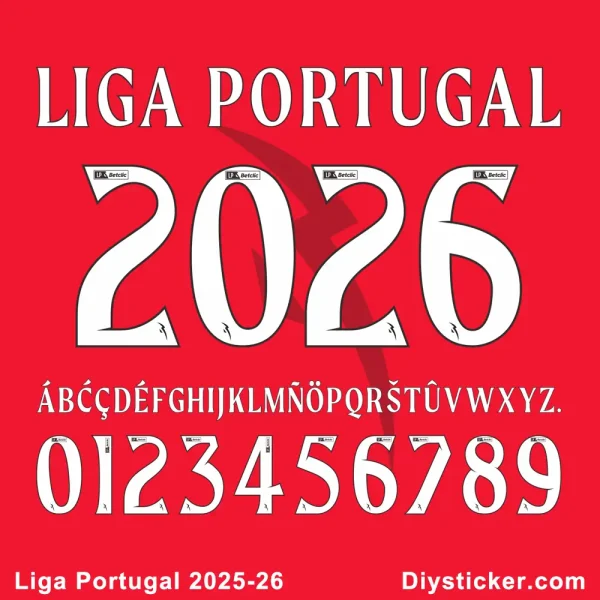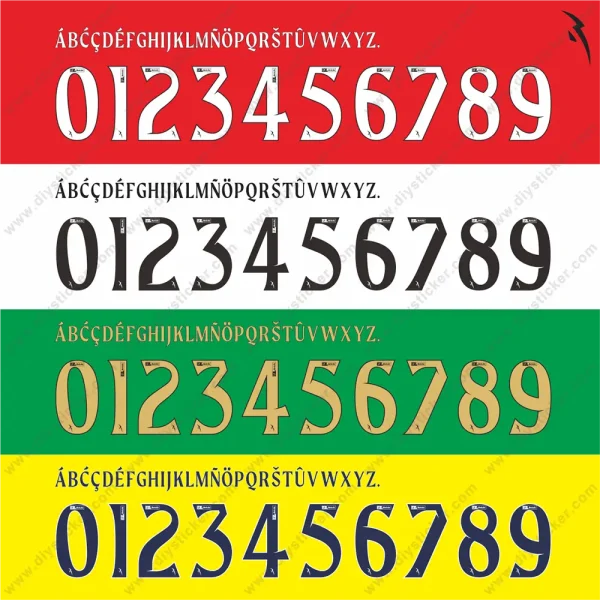
Liga Portugal 2025-26 Font Download
Introducing the official Liga Portugal 2025-26 font – the exact typeface used on team jerseys and official league materials. This font pack is ideal for designers, clubs, fans, and custom apparel projects.